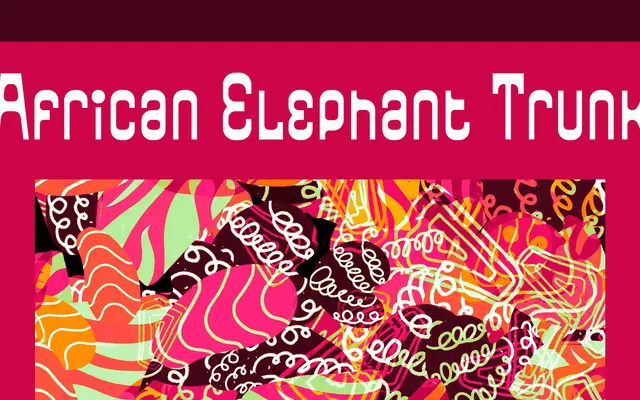
African Elephant Trunk
A retro display face drawn from early to mid-20th century vinyl record lettering, with small caps included for typographic flexibility.
Modelled on the hand-lettered and typeset styles found on vinyl records from the 1920s through to the 1950s, the face carries a warmth associated with that era of print and packaging. Small caps are included, giving it a degree of typographic versatility beyond simple headline use. Best suited to music-adjacent branding, event posters and editorial contexts where a period aesthetic is called for.
A decorative display face drawn from the aesthetic of mid-20th century vinyl record lettering, placing it firmly in the display category with a retro vernacular subcategory.